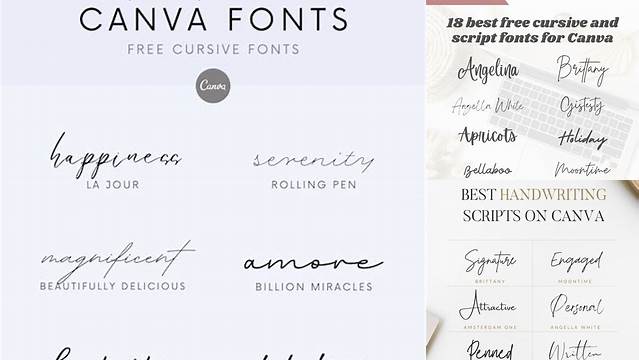
Canva Cursive Fonts: Ultimate Guide
Hey guys! Ever wanted to add a touch of elegance and personality to your designs? Cursive handwriting fonts in Canva are the perfect way to do just that. They can instantly transform a project from basic to beautiful, giving it a handcrafted feel that's both inviting and stylish. In this comprehensive guide, we'll dive deep into everything you need to know about using cursive fonts in Canva, from finding the perfect ones to making the most of them in your projects. So, let's get started and unlock the secrets of stunning design!
Finding the Best Cursive Handwriting Fonts in Canva
Alright, first things first: finding the right cursive font. Canva has a massive library of fonts, but not all of them are created equal, especially when it comes to cursive. You want something that's legible, aesthetically pleasing, and fits the vibe of your project. Here’s how to find those gems:
Exploring Canva's Font Library
Okay, so let's get right into it! When you're in Canva, you can easily access the font library. Just click on any text box in your design, and a menu will pop up with all sorts of options. There, you'll see the font selection dropdown. Click on it, and bam! You’ve got a whole world of fonts at your fingertips. Now, to find cursive fonts, you can either scroll through the list, or, here's a pro tip: use the search bar. Type in keywords like "cursive," "handwritten," or even more specific terms like "script" or "calligraphy." This will narrow down the results and save you a ton of time. Remember, Canva's font library is constantly updated, so keep an eye out for new additions!
When you browse, pay attention to the font previews. Canva gives you a glimpse of how each font looks, which is super helpful. Look for fonts that have a smooth flow, consistent letter connections, and a style that resonates with your project. For example, if you're designing a wedding invitation, a more elaborate and elegant cursive font might be the perfect fit. If you're working on something more casual, a simpler, more readable cursive font could be the way to go. Don't be afraid to experiment and try out different fonts to see what works best.
Also, remember to check out the font pairings. Canva often suggests font combinations that complement each other. This can be a great starting point if you're unsure which fonts to use together. Pairing a beautiful cursive font with a clean, easy-to-read sans-serif font for headings and body text can create a balanced and visually appealing design. Mixing and matching is key, so have fun with it!
Using Keywords and Filters Effectively
Let's talk about getting specific with those searches. Using the right keywords and filters can be a game-changer when you're looking for the perfect cursive font in Canva. As mentioned earlier, the basics are "cursive," "handwritten," and "script." But let's kick it up a notch.
If you want something with a vintage feel, try searching for terms like "vintage cursive" or "retro script." For a more modern look, search for "modern calligraphy" or "contemporary script." Do you have a certain mood in mind? Search for “playful cursive” or “elegant script” to help you narrow down the options. Get creative with your searches. Think about the overall style of your project and tailor your keywords to match.
Canva also offers filters. These filters can be found in the font selection menu. You can filter by style (serif, sans-serif, etc.) and weight (light, regular, bold). While Canva’s filters might not always be super specific for cursive fonts, they can still help you refine your search. For example, you can filter for serif fonts to focus on fonts that might have more traditional cursive styles. Also, remember to check the "free" filter if you are using the free version of Canva. This way, you can be sure that the fonts you are choosing are available to you. Being smart about keywords and filters will save you a ton of time and help you find the ideal cursive font faster.
Identifying Legible and Stylish Cursive Fonts
Now, let's talk about the tricky part: choosing fonts that look good and are actually readable. Legibility is key, especially when it comes to cursive fonts. Some cursive fonts can be so ornate and stylized that they become difficult to read, which isn’t great for your audience. So, how do you strike the perfect balance between style and clarity?
First off, test the font. Type out a few words or phrases in the font you are considering. Make sure you use the words that will appear in your final design. This lets you see how the font looks in context. Pay attention to how the letters connect. Are the connections smooth and natural, or are they clunky and awkward? Check for any letter combinations that might be confusing or difficult to decipher. A good cursive font will have clear, easy-to-read letterforms, even when connected. Also, be mindful of the font size. A font that looks great at a large size might be unreadable at a smaller size.
Consider the x-height. The x-height is the height of the lowercase "x" in a font. Fonts with a larger x-height tend to be more readable, especially in body text. When choosing a cursive font, look for one with a relatively generous x-height. This will help ensure that the letters are clear and easy to distinguish. Also, make sure that the font is suitable for your project. Is it suitable for headings, body text, or both? Some cursive fonts are best used sparingly, like for headlines or short phrases. Others are clear enough to use for longer blocks of text. Knowing your project's needs will guide you.
Conclusion: Mastering Cursive Fonts in Canva
So, there you have it! Using cursive handwriting fonts in Canva can open up a world of creative possibilities. From crafting elegant invitations to designing eye-catching social media graphics, cursive fonts can add a touch of personality and flair to any project. Remember to focus on legibility, experiment with different pairings, and don't be afraid to get creative. With a little practice and the tips in this guide, you'll be creating stunning designs in no time. Happy designing, everyone!